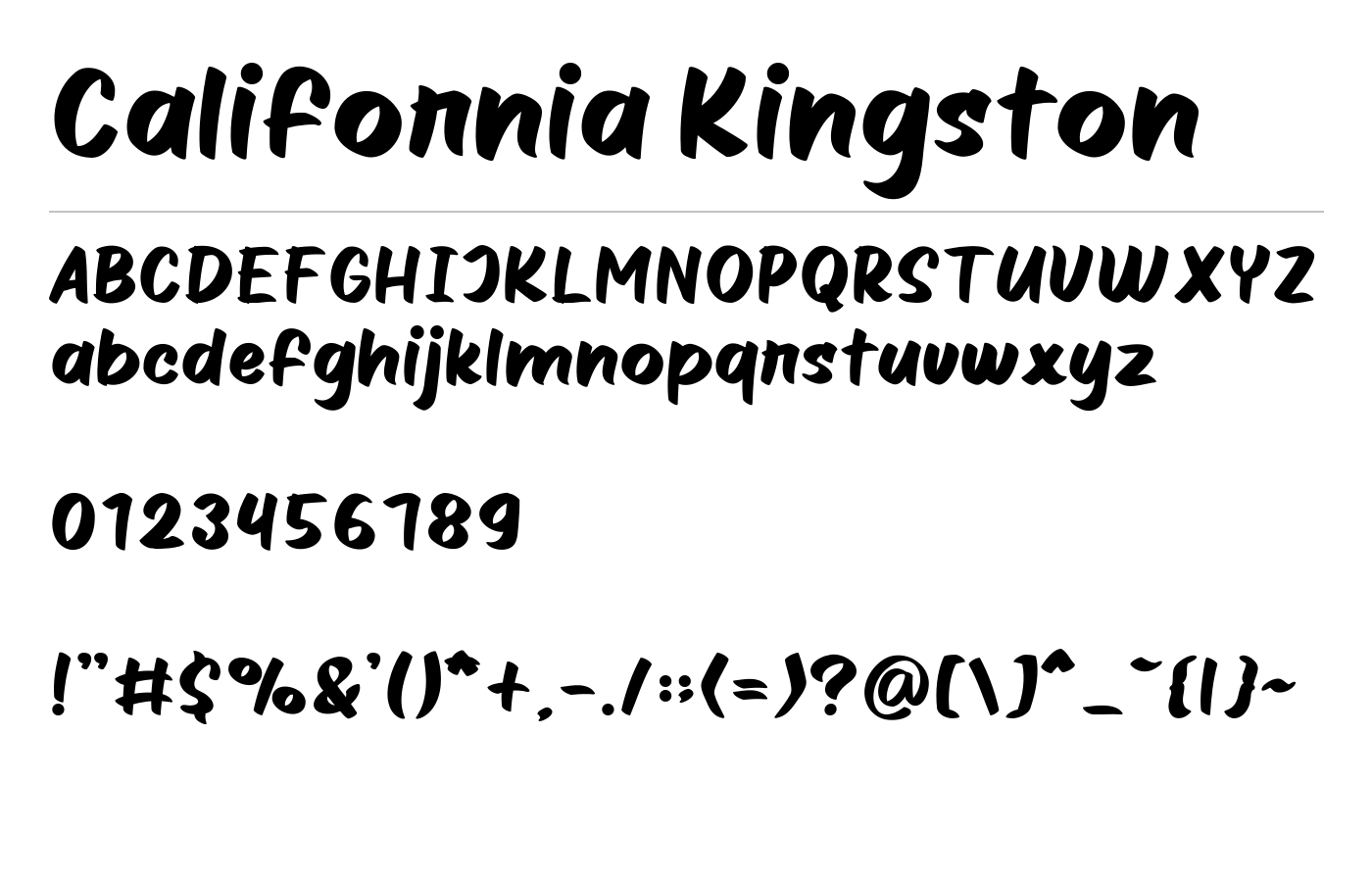
California Kingston is a bold, playful script-style font with a hand-drawn feel, featuring smooth, rounded strokes and a lively, informal character. Its casual, friendly appearance makes it perfect for projects that aim to convey warmth and creativity, such as branding, invitations, or posters with a fun and approachable vibe.
California Kingston Font
About California Kingston Font
| Font family | California Kingston Font |
| Designer | Stefie Justprince |